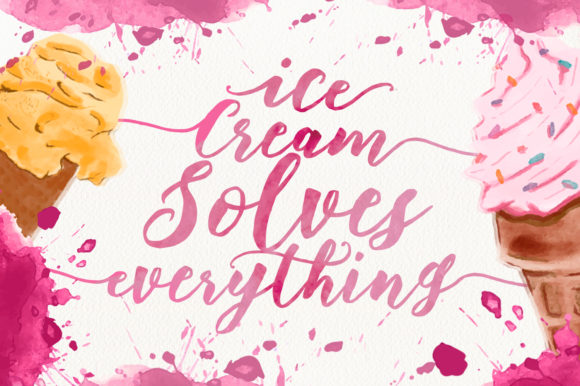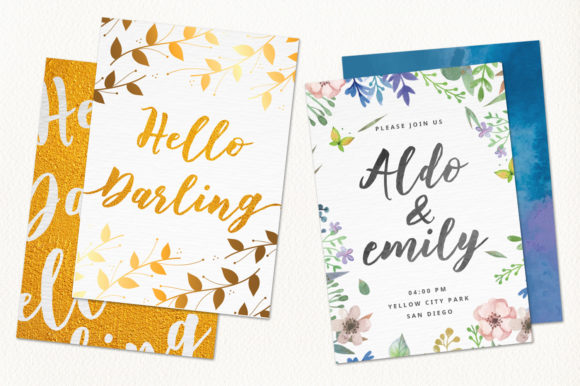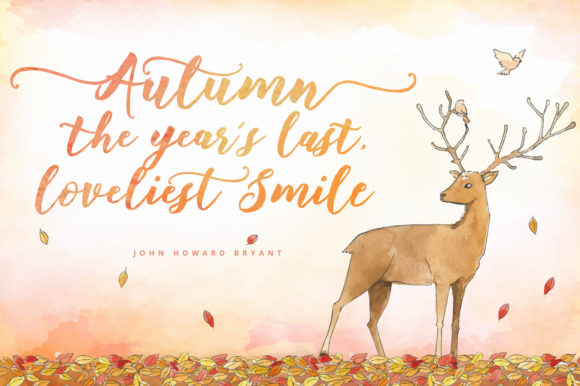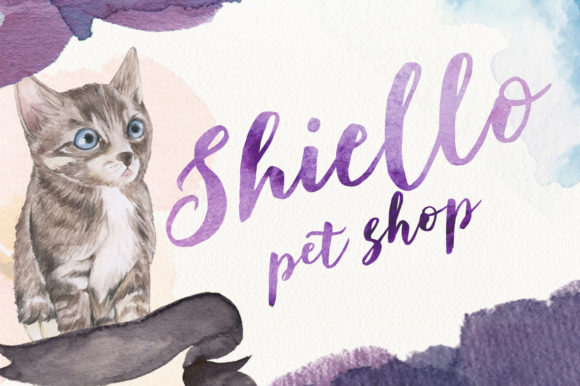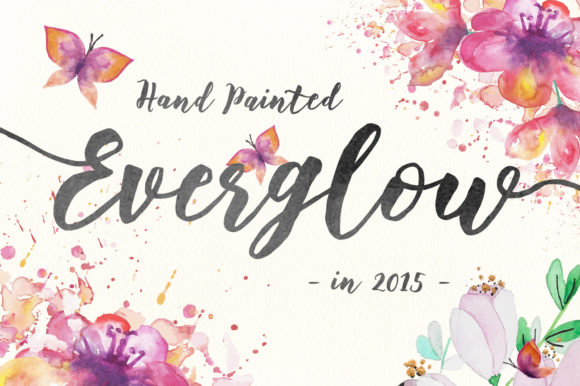
The Quest for the Perfect Font: Discovering Floweress
I’ll never forget the time I was working on a project for a client who wanted a font that exuded romance and elegance. I had spent hours scouring the internet for the perfect font, but nothing seemed quite right. That was until I stumbled upon Floweress, a fun and bold handwritten font with a cool feel that instantly captured my heart. In this article, I’ll share my experience with Floweress, its features, and how to make the most of it in your designs.
A First Impression: What I Love About Floweress
So, what makes Floweress so special? Here are a few things that I absolutely love:
- ✨ Romantic Elegance: Floweress has a unique ability to convey romance and elegance, making it perfect for wedding invitations, Valentine’s Day cards, and other special occasions.
- ✅ Bold and Fun: This font is not just elegant; it’s also bold and fun, making it suitable for a wide range of design projects, from playful greeting cards to eye-catching posters.
- 💕 Handwritten Charm: Floweress has a beautiful handwritten quality that gives it a personal and intimate feel.
Honest Review: A Few Quirks to Consider
While Floweress is an amazing font, it’s not without its quirks. Here are a few things to keep in mind:
- 🤔 Limited Use in Small Sizes: Floweress can be a bit tricky to read in small sizes, so it’s best to use it for headlines or large text.
- ⚠️ Not Suitable for Body Text: Due to its bold and decorative nature, Floweress is not ideal for body text or long blocks of text.
One of the best things about Floweress is its support for OpenType features and glyphs. These features allow you to add more variety and creativity to your text. Here are a few examples:
- Stylistic Alternates: Floweress offers stylistic alternates that allow you to switch between different font styles, such as italic, bold, and script.
- Glyphs: Floweress includes a range of glyphs, including ligatures, ornaments, and swashes. These glyphs can add a touch of elegance and sophistication to your text.
The Story Behind Floweress
Floweress was designed by a talented typographer who wanted to create a font that exuded romance and elegance. Inspired by traditional calligraphy and handwriting, Floweress is a modern take on classic typography. The designer’s goal was to create a font that would be both fun and elegant, making it perfect for a wide range of design projects.
| Font Name | Floweress Font |
| Author | FadeLine |
- Q: What is Floweress?
- A: Floweress is a fun and bold handwritten font with a cool feel, perfect for romantic and elegant designs.
- Q: Is Floweress suitable for body text?
- A: No, Floweress is best used for headlines or large text due to its bold and decorative nature.